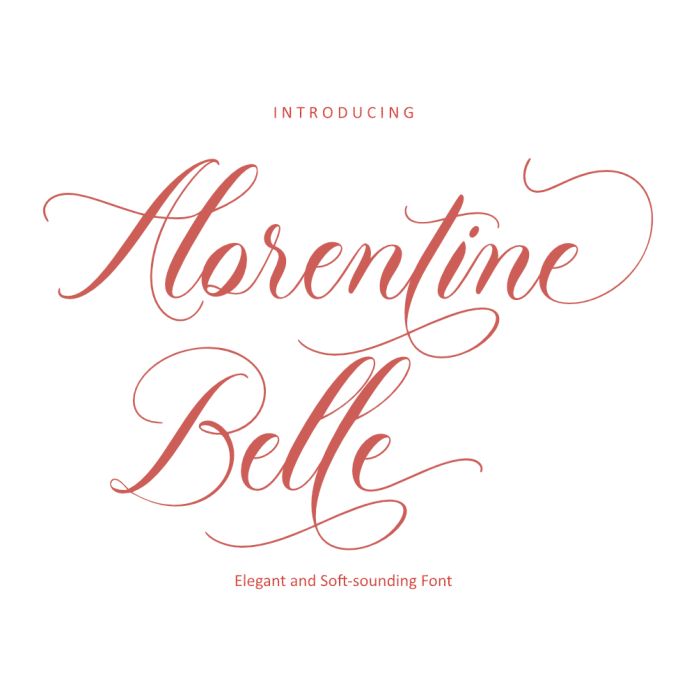
Alorentine Belle Font is an elegant and sophisticated script font with intricate swirls and flourishes. Its flowing design exudes a sense of luxury and femininity, making it ideal for wedding invitations, branding, and other upscale projects. The font's unique style adds a touch of charm and sophistication to any design.